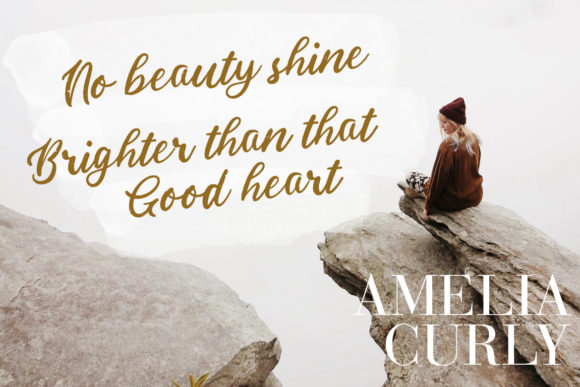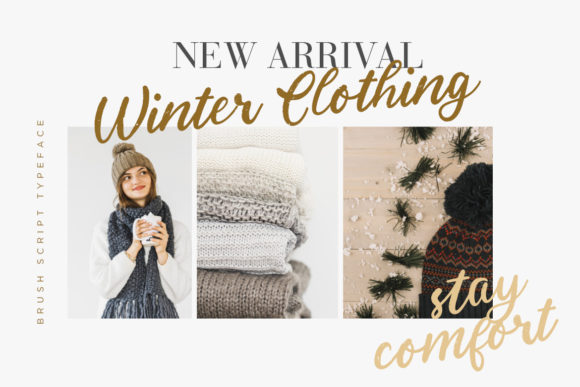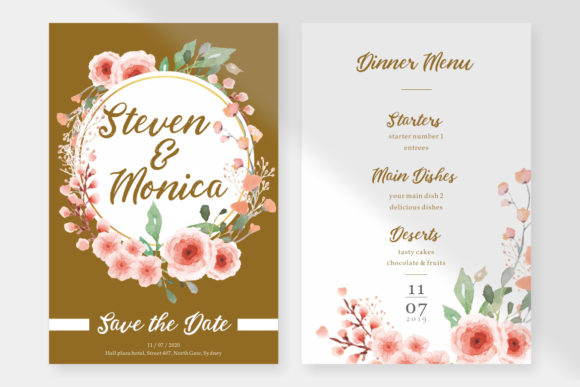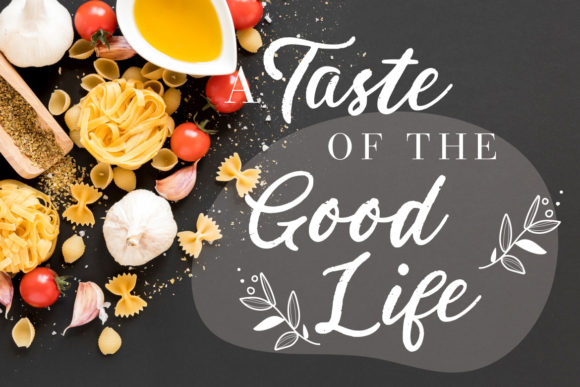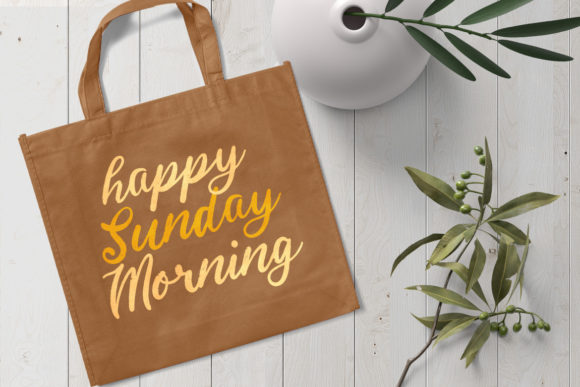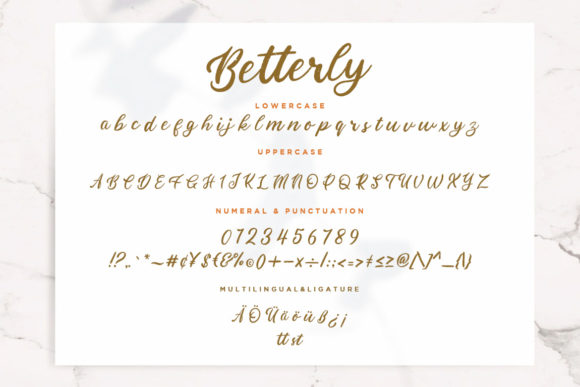
Betterly Font: Elevate Your Designs with a Touch of Authentic Handwritten Elegance
Are you tired of using the same old fonts in your designs? Do you want to add a personal touch that sets your projects apart? Look no further than Betterly Font, an authentic handwritten font that is sure to capture your heart and take your creations to new heights. In this article, we’ll dive into the world of Betterly Font, exploring its unique features, benefits, and uses, as well as provide tips on how to make the most of this stunning font.
What is Betterly Font?
Betterly Font is a beautiful, handcrafted font that exudes warmth and personality. Its authentic handwritten style makes it perfect for a wide range of design projects, from branding and advertising to packaging and digital media. With its unique character and charm, Betterly Font is sure to add a touch of elegance and sophistication to any design.
Key Features of Betterly Font
- Authentic Handwritten Style: Betterly Font is carefully crafted to mimic the natural flow and imperfections of handwritten text, giving it a unique and personal feel.
- Highly Legible: Despite its handwritten nature, Betterly Font is highly legible, making it suitable for use in a variety of contexts, from body text to headings.
- Versatile: Betterly Font is incredibly versatile, and can be used in a wide range of design projects, from digital media to print materials.
- Easily Customizable: With its range of weights and styles, Betterly Font can be easily customized to suit your design needs.
Benefits of Using Betterly Font
So why choose Betterly Font for your design projects? Here are just a few benefits of using this stunning font:
- Adds a Personal Touch: Betterly Font’s handwritten style adds a personal touch to your designs, setting them apart from the standard, generic fonts often used.
- Evokes Emotion: The authentic, handwritten nature of Betterly Font evokes emotion and creates a connection with the viewer, making your designs more engaging and memorable.
- Enhances Brand Identity: By using Betterly Font in your branding and advertising materials, you can create a consistent and cohesive visual identity that reflects your brand’s personality and values.
Using Betterly Font in Your Designs
So how can you make the most of Betterly Font in your designs? Here are a few tips:
- Pair with Other Fonts: Betterly Font pairs beautifully with other fonts, so don’t be afraid to experiment with different combinations to create visual interest.
- Use in Headings and Titles: Betterly Font’s unique character makes it perfect for use in headings and titles, where it can add a touch of elegance and sophistication.
- Experiment with Colors and Textures: Betterly Font looks stunning in a range of colors and textures, so don’t be afraid to get creative and try out different effects.
In conclusion, Betterly Font is a stunning, authentic handwritten font that is sure to elevate your designs to new heights. With its unique character, versatility, and range of benefits, Betterly Font is the perfect choice for designers and crafters looking to add a personal touch to their projects. So why wait? Fall in love with Betterly Font and bring your projects to the highest levels!
Betterly is an authentic handwritten font. Fall in love with it and bring your projects to the highest levels!